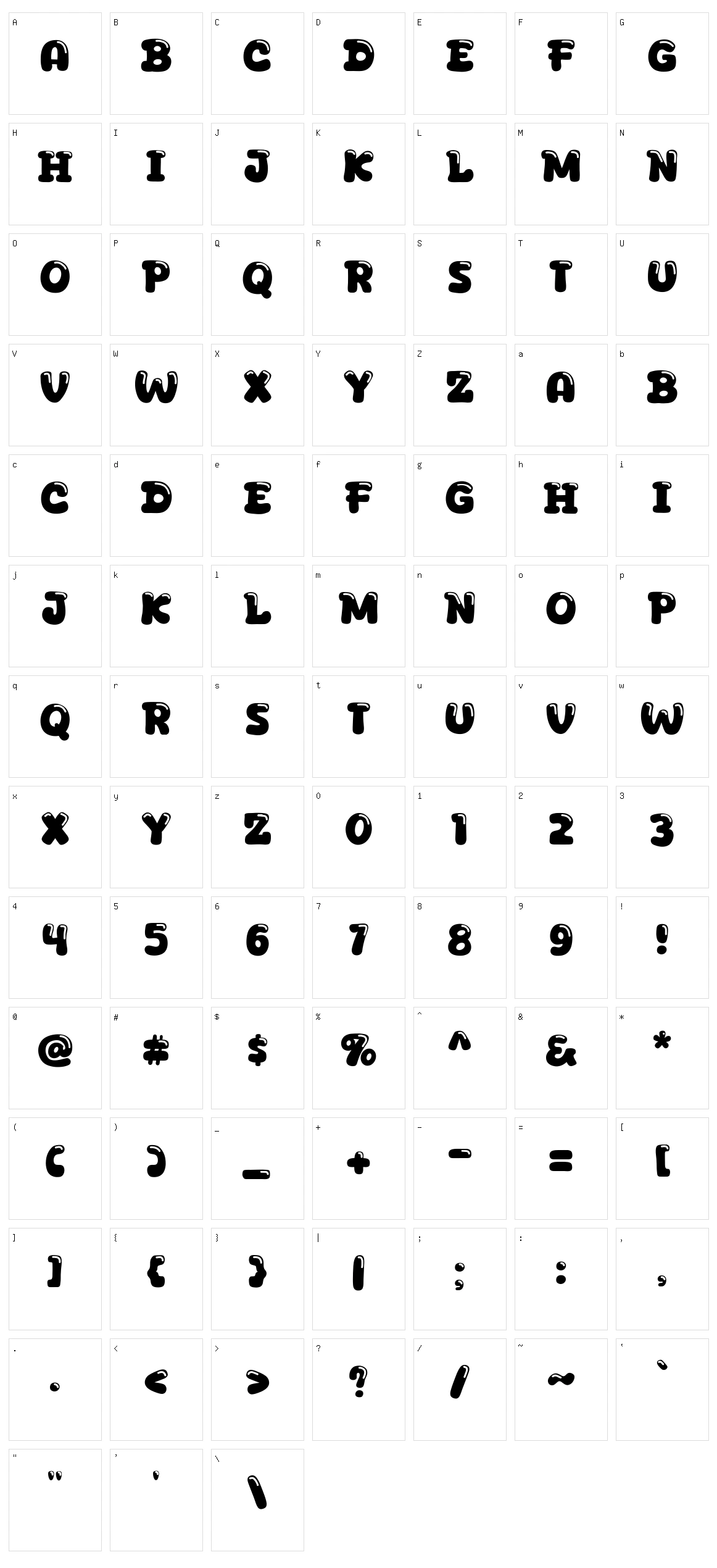
The free font Aqua Wow is carefully designed by Khurasan, showcasing a thoughtful balance of creativity and usability and falls under the Cartoon font style. When you download the ZIP file, it contains only 419.47 KB of font files, making it lightweight and quick to download. Please review the license details below to understand permitted usage and distribution rights. If license information is not available, we recommend using this font for personal projects only or contacting the author directly for commercial usage permissions.